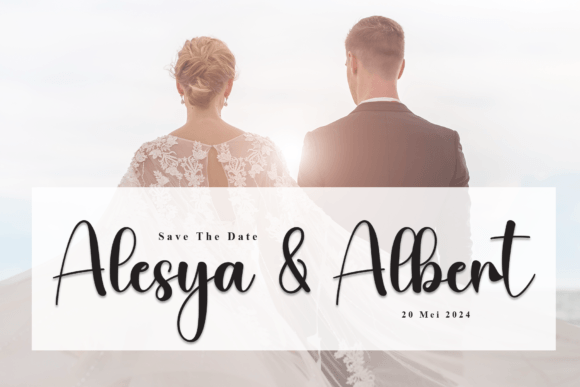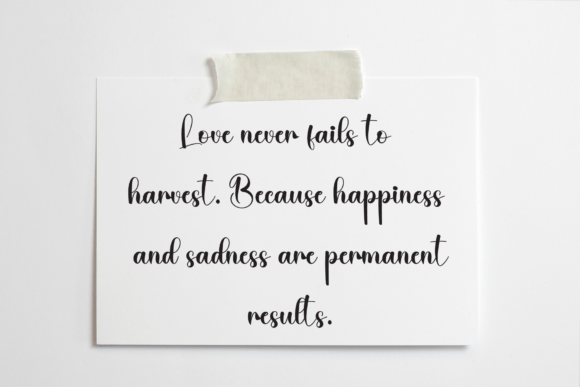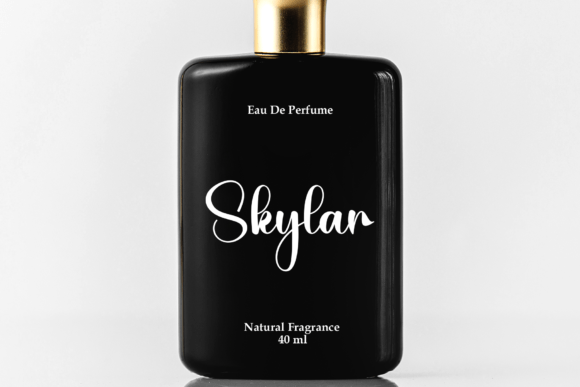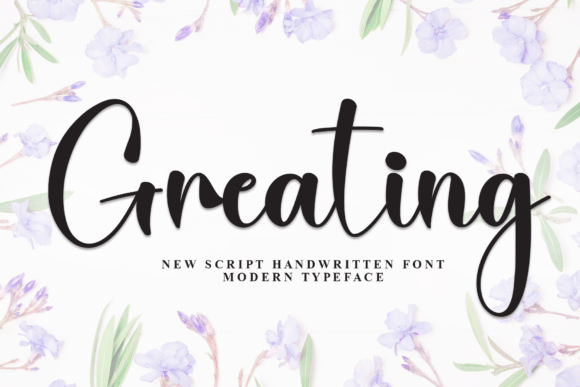
Introduction to Greating Font
Greating is a sweet and friendly handwritten font.
Key Features of Greating Font
Why Choose Greating Font?
Greating Font offers exceptional quality and versatility, making it a valuable addition to your design toolkit. Whether you’re creating for personal projects or commercial use, Greating Font delivers professional results.